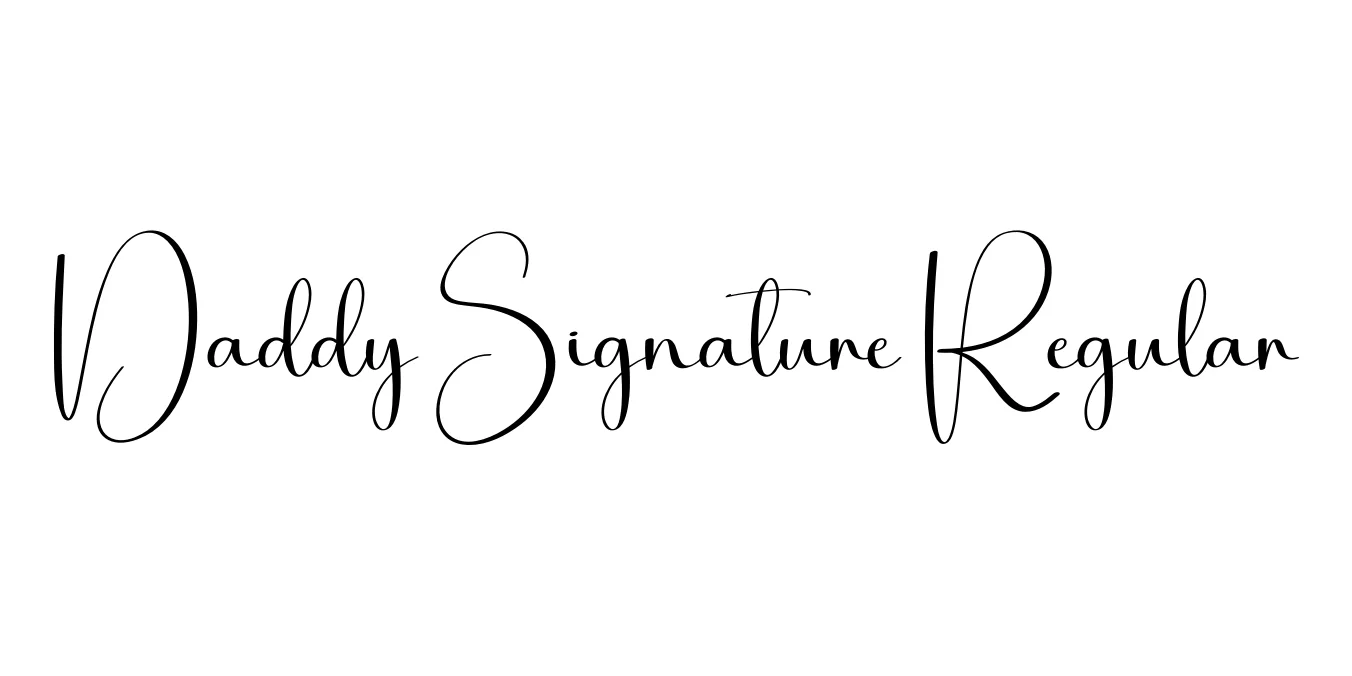
Daddy Signature Regular
Designed by Sronstudio
Daddy Signature Regular is a sophisticated script typeface meticulously crafted to replicate the natural flow of human handwriting. Designed by the renowned Sronstudio, this font features elegant, elongated strokes and a rhythmic baseline that conveys a sense of luxury and exclusivity. It is an ideal choice for creators seeking a high-end, personal touch for digital and print media, blending modern aesthetics with classic calligraphy techniques.
Beyond its visual appeal, the font provides a clean and legible structure even at smaller sizes, which is a common challenge for signature-style fonts. The lowercase swashes and smooth connections between glyphs make it particularly effective for professional branding, luxury product packaging, and creative editorial layouts. Its versatility ensures it remains a favorite for designers aiming to create an authentic, boutique-style atmosphere.
Daddy Signature Regular Best Uses
Creating distinctive logos and brand marks for luxury or boutique businesses.
Perfect for watermarks and professional overlays on high-end portfolio images.
Ideal for wedding invitations, RSVP cards, and personalized greeting cards.
Effective for social media quotes, digital ads, and promotional banners that require a personal touch.